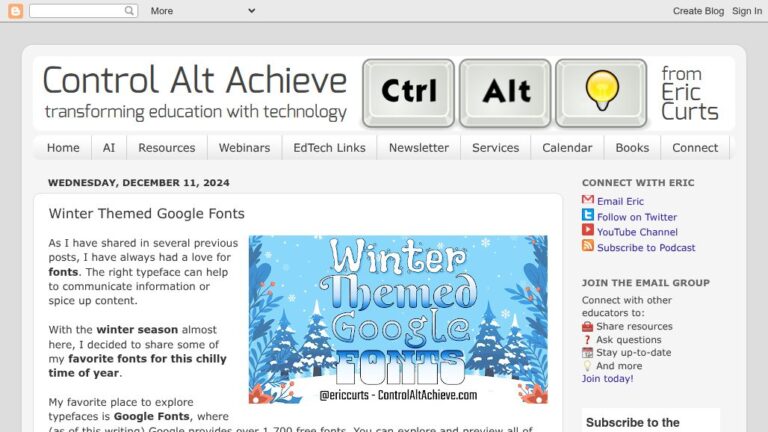
With the winter season almost here, I decided to share some of my favorite fonts for this chilly time of year.
My favorite place to explore typefaces is Google Fonts, where (as of this writing) Google provides over 1,700 free fonts. You can explore and preview all of these typefaces at https://fonts.google.com/
You and your students can use these fonts to add style, personality, and creativity to your Google Docs, Slides, Sheets, Forms, Sites, and more. You can easily add any of these fonts to your Google tools by clicking the font menu, choosing “More fonts”, and then typing in the font name. See below for 15 of my favorite fonts for wintertime listed in alphabetical order. Some tie into the snowy side of the season, while others lean into the festivities and fun.